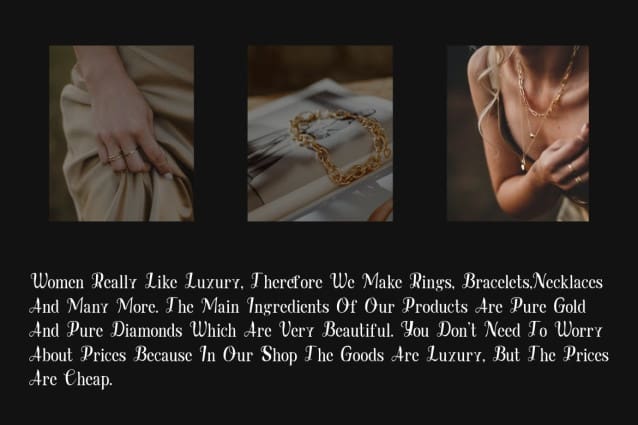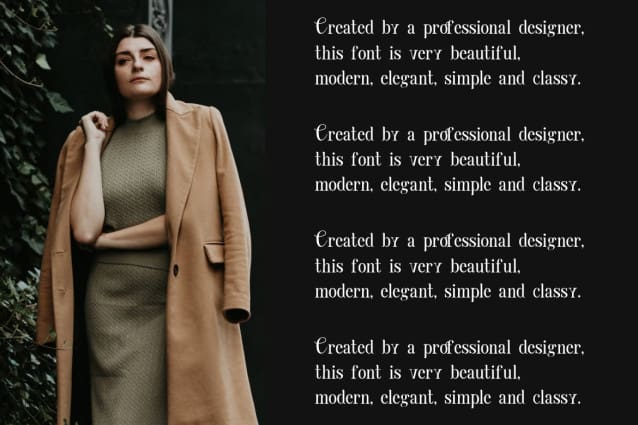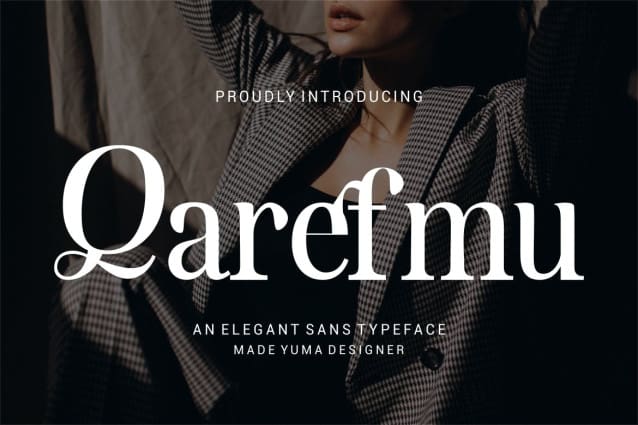
Qarefmu Font
Qarefmu Font is an elegant, modern font. It’s really beautiful to use on invitations such as greeting cards, business cards, quotes, posters, and many more!